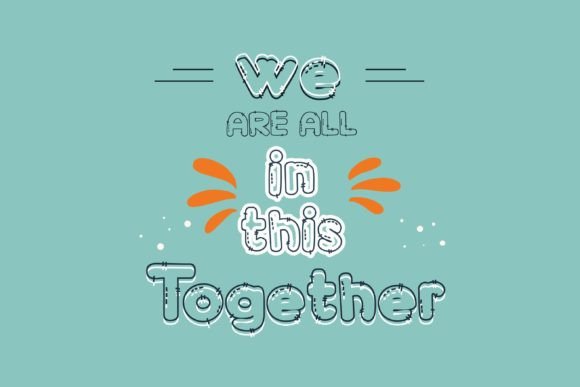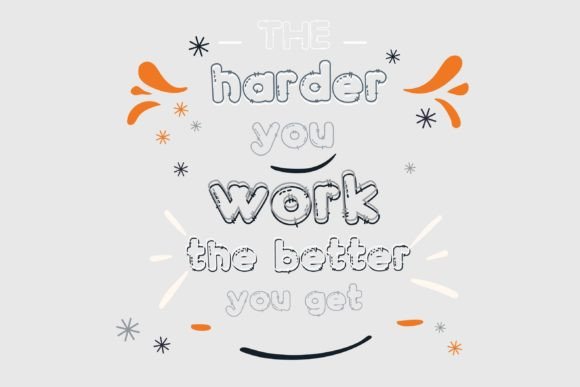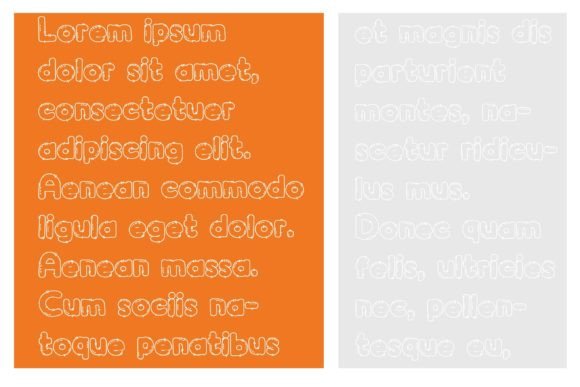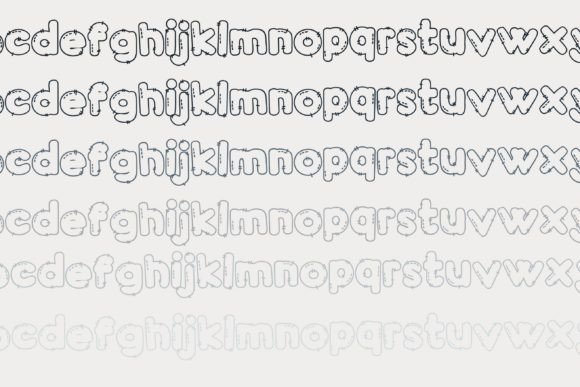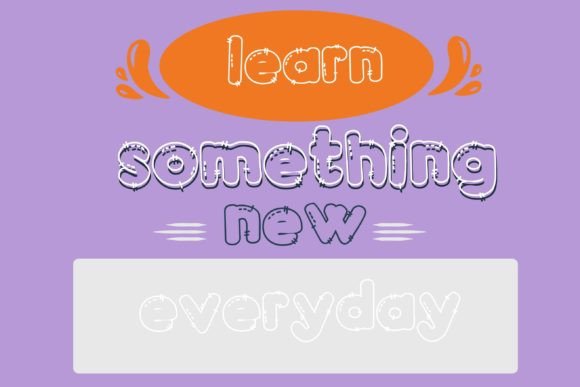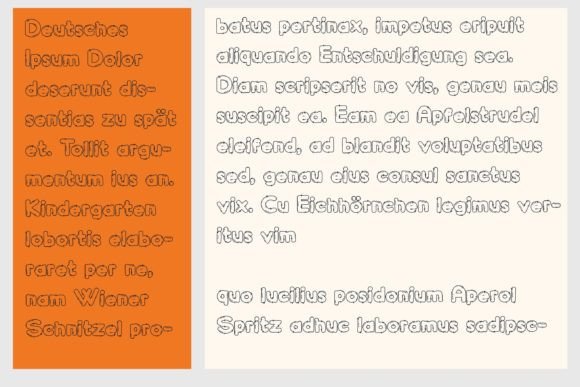
Introducing Fatstock Stitch Font: A Whimsical Hand-Crafted Typeface
Are you tired of using the same old fonts for your design projects? Look no further than the Fatstock Stitch Font, a charming and unique typeface that’s sure to add a touch of personality to your work. This whimsical, hand-crafted font is a chunky sans serif with a crafty feel that’s perfect for designers and crafters looking to add a personal touch to their projects.
A hand-crafted font is a typeface that’s designed to feel unique and crafty. Unlike traditional fonts that are created using computer software, hand-crafted fonts are individually drawn with care, giving them a distinctive, organic look. This type of font is often used for invitations, greeting cards, and other items where a personal touch is desired. Hand-crafted fonts are typically informal and can be used for a variety of purposes, from logos and websites to everyday text.
The Features of Fatstock Stitch Font
The Fatstock Stitch Font is a standout typeface that offers a range of features that make it perfect for designers and crafters. Here are just a few of the benefits of using this font:
- Unique and Organic Look: The Fatstock Stitch Font has a one-of-a-kind, hand-crafted look that’s sure to stand out from the crowd. Each letter is individually drawn with care, giving the font a distinctive, organic feel.
- Chunky Sans Serif: This font features a chunky sans serif design that’s perfect for adding a touch of whimsy to your projects.
- Stitch and Fill Versions: The Fatstock Stitch Font comes in both stitch and fill versions, giving you flexibility and options for your design projects.
- Perfect for a Variety of Projects: Whether you’re working on a logo, website, or everyday text, the Fatstock Stitch Font is a versatile typeface that can be used for a range of applications.
Using Fatstock Stitch Font in Your Design Projects
The Fatstock Stitch Font is a versatile typeface that can be used in a variety of design projects. Here are just a few ideas to get you started:
- Invitations and Greeting Cards: The Fatstock Stitch Font is perfect for creating unique and personalized invitations and greeting cards.
- Logos and Branding: Use this font to create a standout logo or brand identity that’s sure to grab attention.
- Websites and Blogs: Add a touch of personality to your website or blog with the Fatstock Stitch Font.
- DIY Projects: This font is perfect for crafters and DIY enthusiasts who want to add a personal touch to their projects.
Tips for Getting the Most Out of Fatstock Stitch Font
Here are a few tips for getting the most out of the Fatstock Stitch Font:
- Experiment with Different Sizes: The Fatstock Stitch Font looks great in a range of sizes, from small and delicate to large and bold.
- Pair with Other Fonts: Try pairing the Fatstock Stitch Font with other fonts to create a unique and eye-catching combination.
- Use for Headings and Titles: This font is perfect for headings and titles, where its bold and chunky design can really make an impact.
The Fatstock Stitch Font is a unique and versatile typeface that’s perfect for designers and crafters looking to add a personal touch to their projects. With its chunky sans serif design, stitch and fill versions, and hand-crafted feel, this font is sure to stand out from the crowd. Whether you’re working on a logo, website, or DIY project, the Fatstock Stitch Font is a great choice for adding a touch of whimsy and personality to your work.